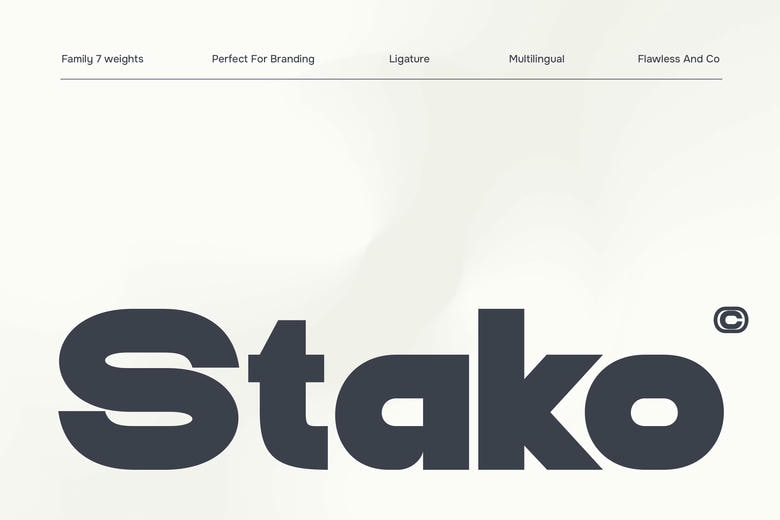
Stako Font
Stako is a flexible family font in the form of a sans serif that is capable of providing a clean, modern and professional visual identity to a broad spectrum of design requirements. Stako has a full range of weights with a regular structure and balanced proportions, which makes it highly readable and flexible, which is why it is applicable to both display and body text.
Its modern and minimalistic design guarantees a sleek appearance in any project. The font family is suitable in logos, branding systems, editorial layouts, websites, packaging, and corporate design.
Stako Sans Serif Font Family